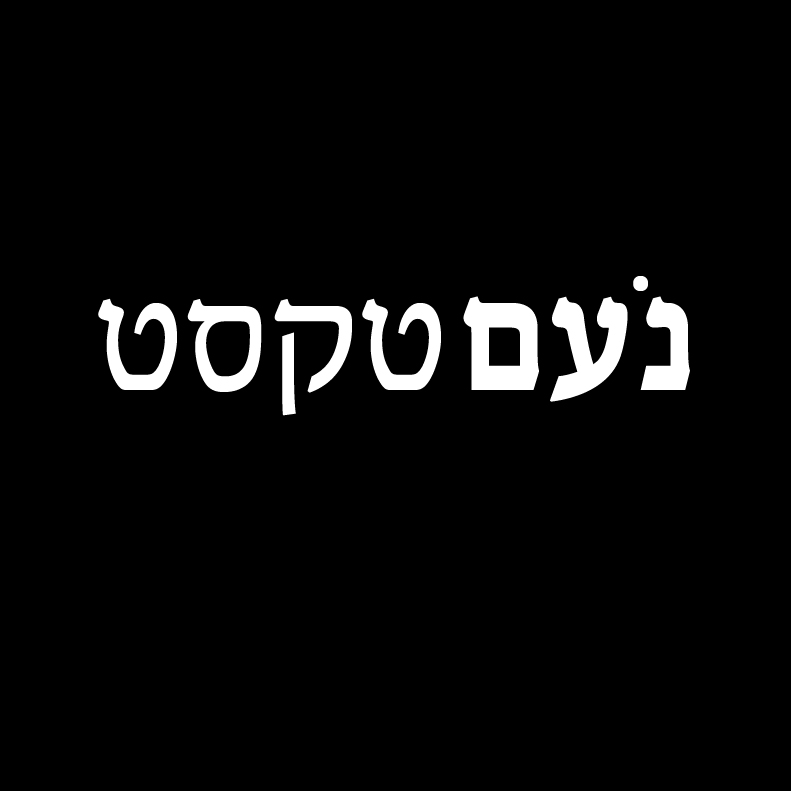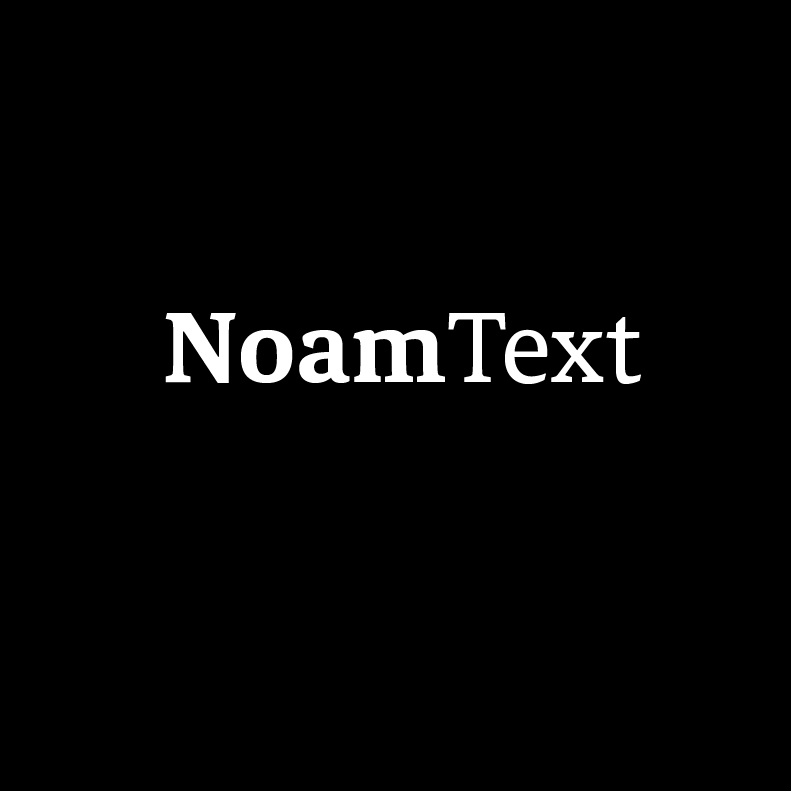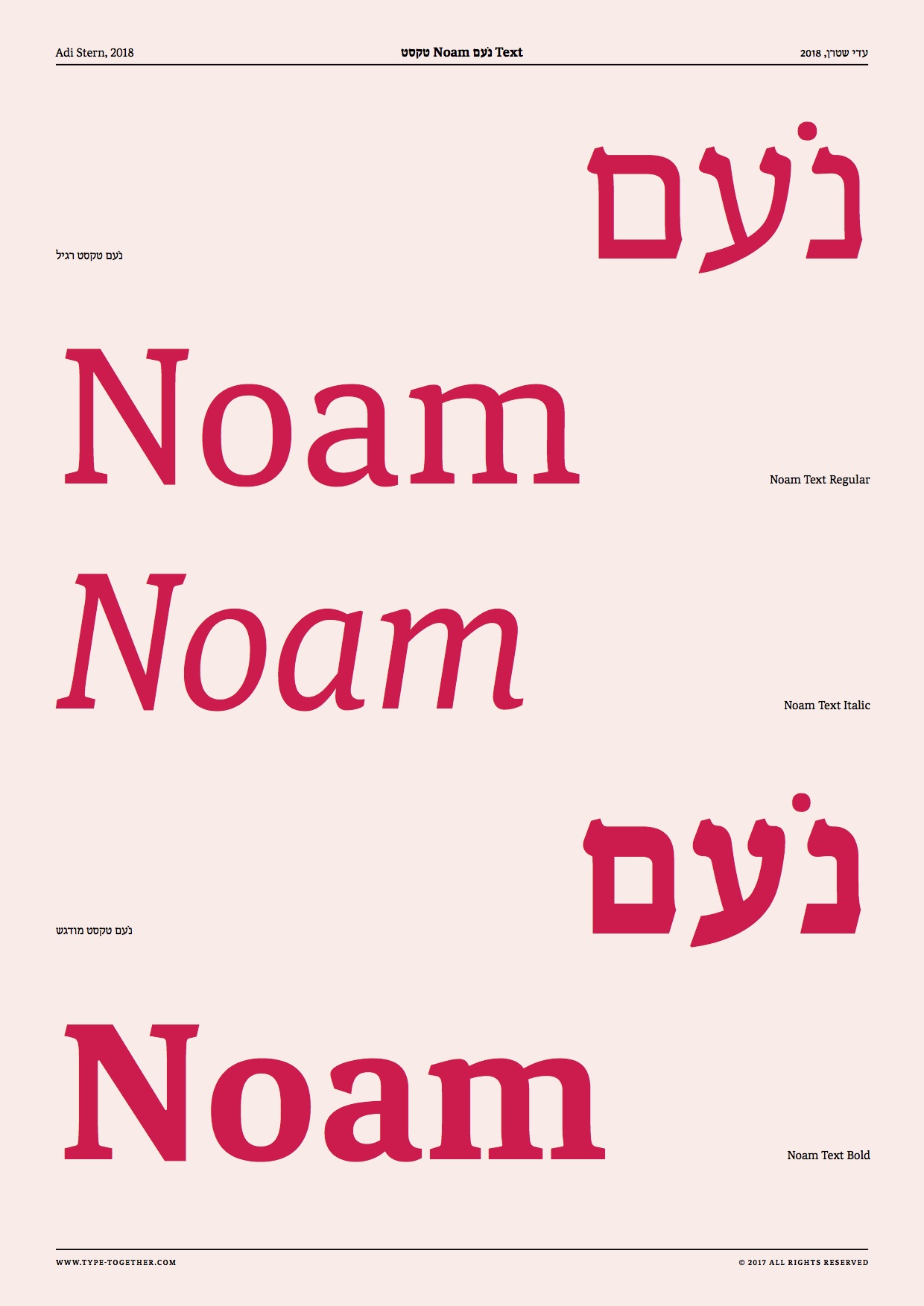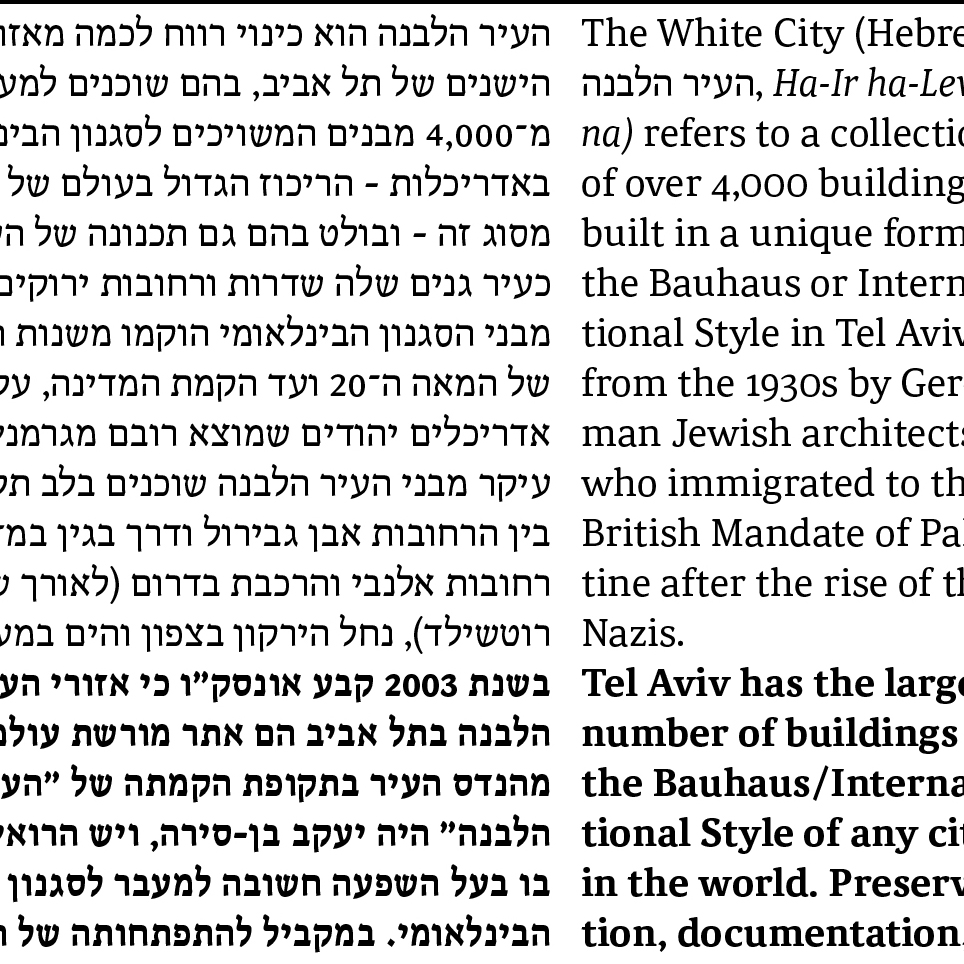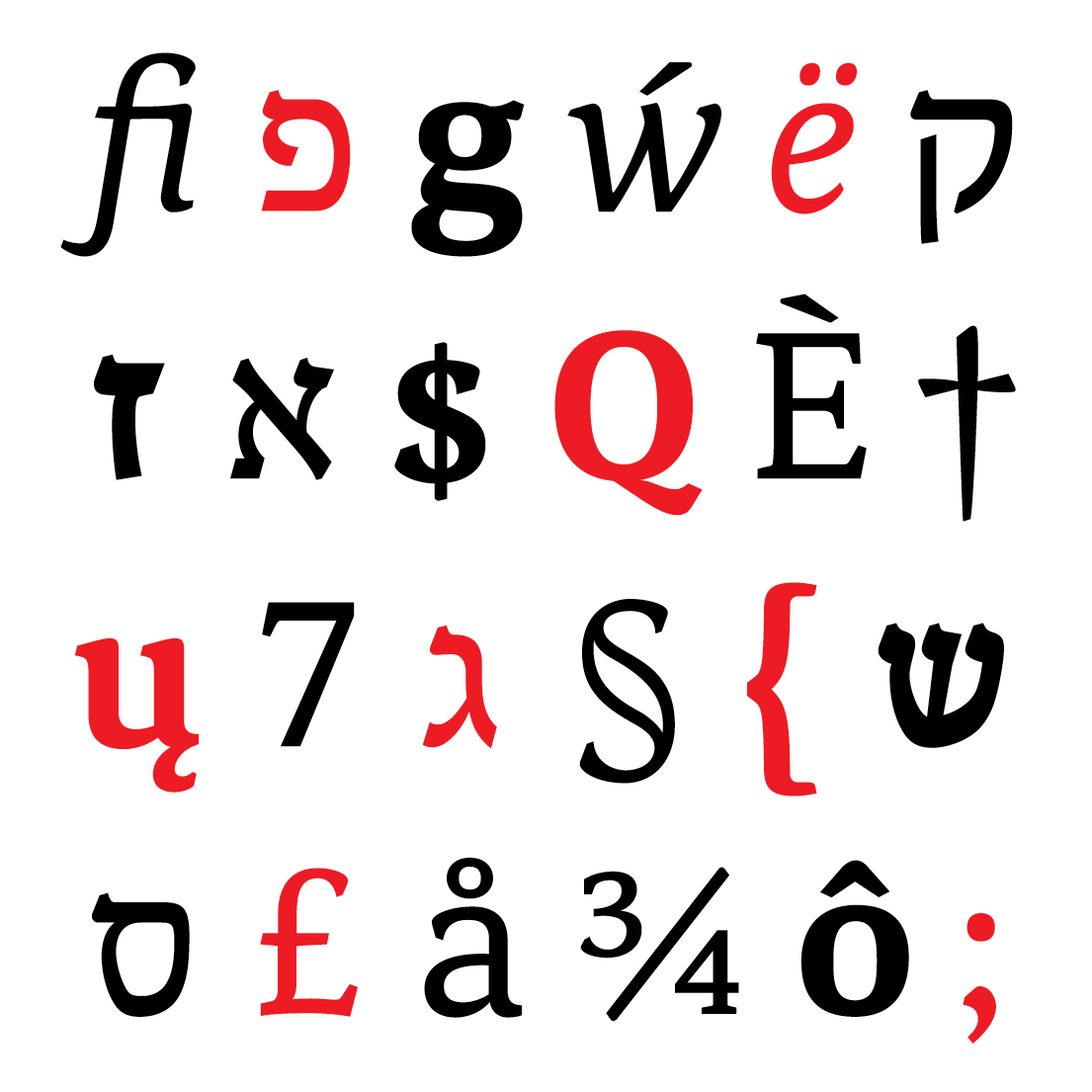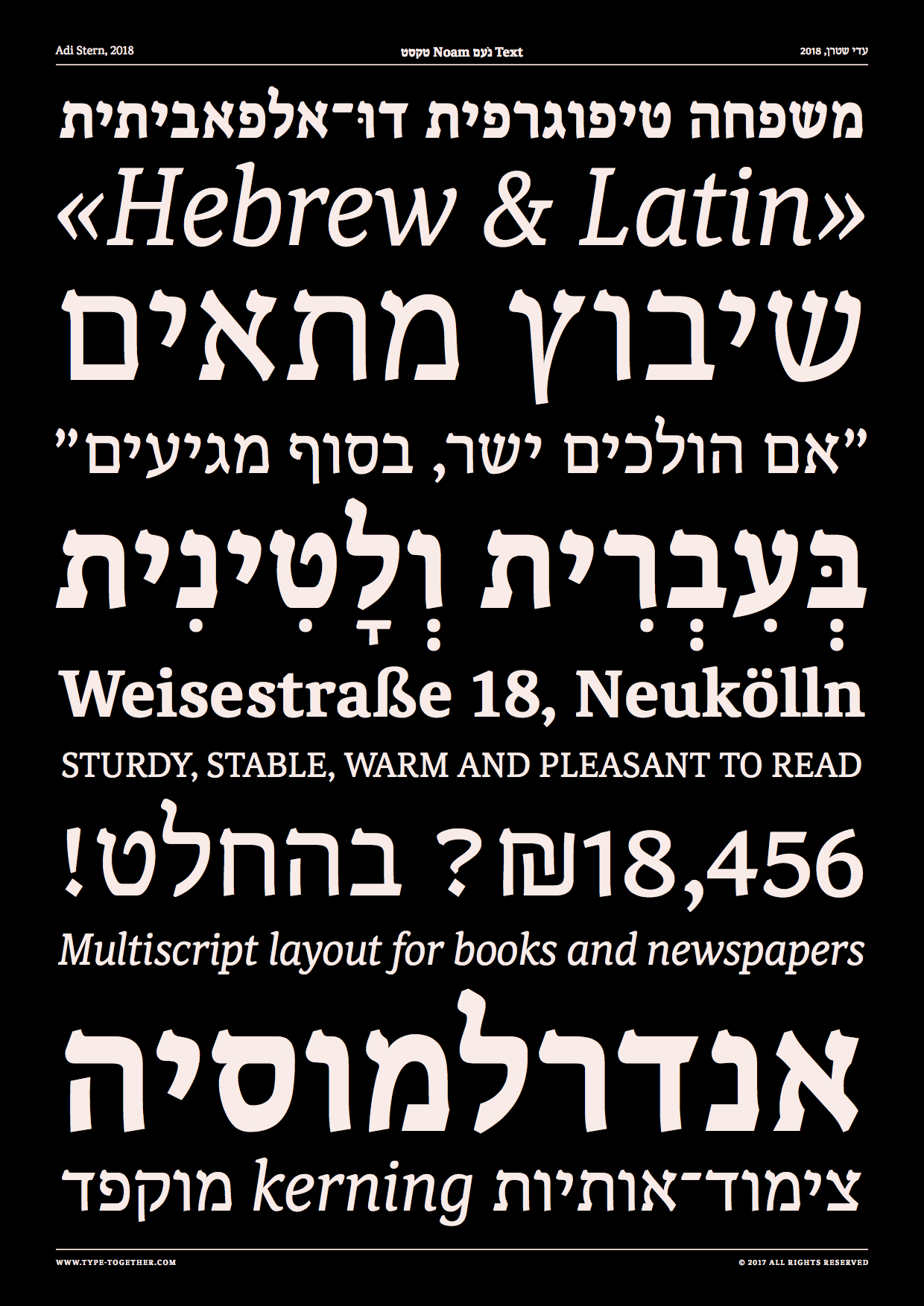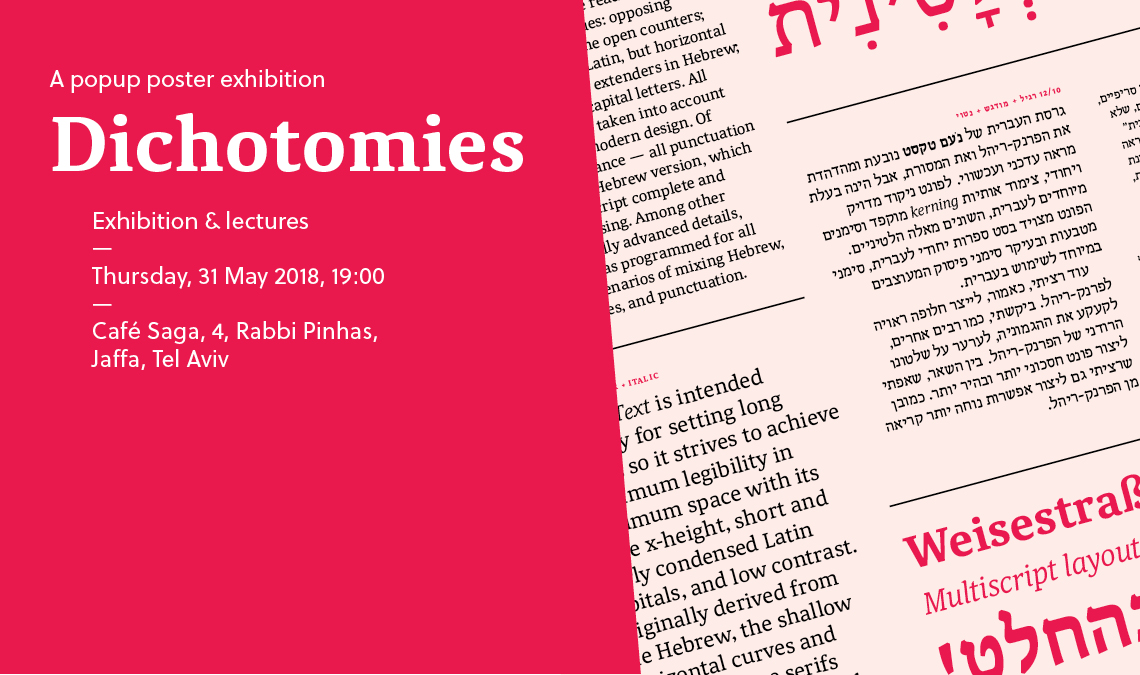
Dichotomies 2018
We proudly introduce Noam Text, a type family that enables the interweaving of an English word or sentence amidst Hebrew text, without any disruption — fluently, calmly.
20:00 – Veronika Burian and Adi Stern will lecture and discuss NoamText, typeface design, and long journeys
Adi Stern decided fifteen years ago to design a font family meant for continuous reading. His goal was to create a typeface that could set newspapers, magazines, and books in the digital and print world. He also recognised a need for a modern dual-script typeface, holding both Latin and Hebrew fonts. Balancing these two scripts can be difficult because they need to be loyal to the tradition, heritage, and essence of the Hebrew script, as well as to those of the Latin. Each script must stand on its own, and both must work in tandem.